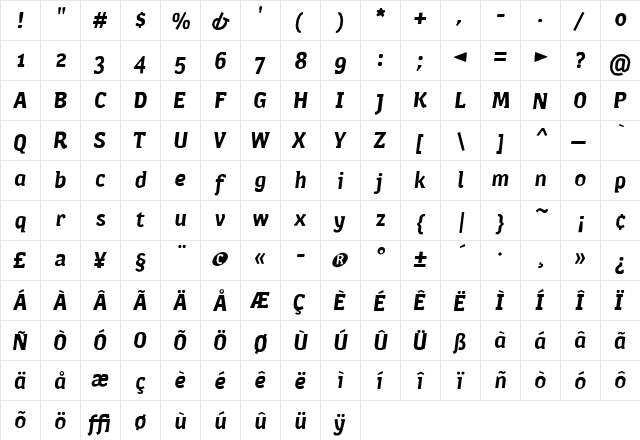
Cornwall Bold Italic
Design Context for Cornwall Typeface
Cornwall takes a measured approach to typography — its balanced proportions and neutral character make it a reliable workhorse for both digital and print work. Its italic angle brings a sense of urgency and motion to the letterforms. The heavy weight commands attention and anchors typographic hierarchies.